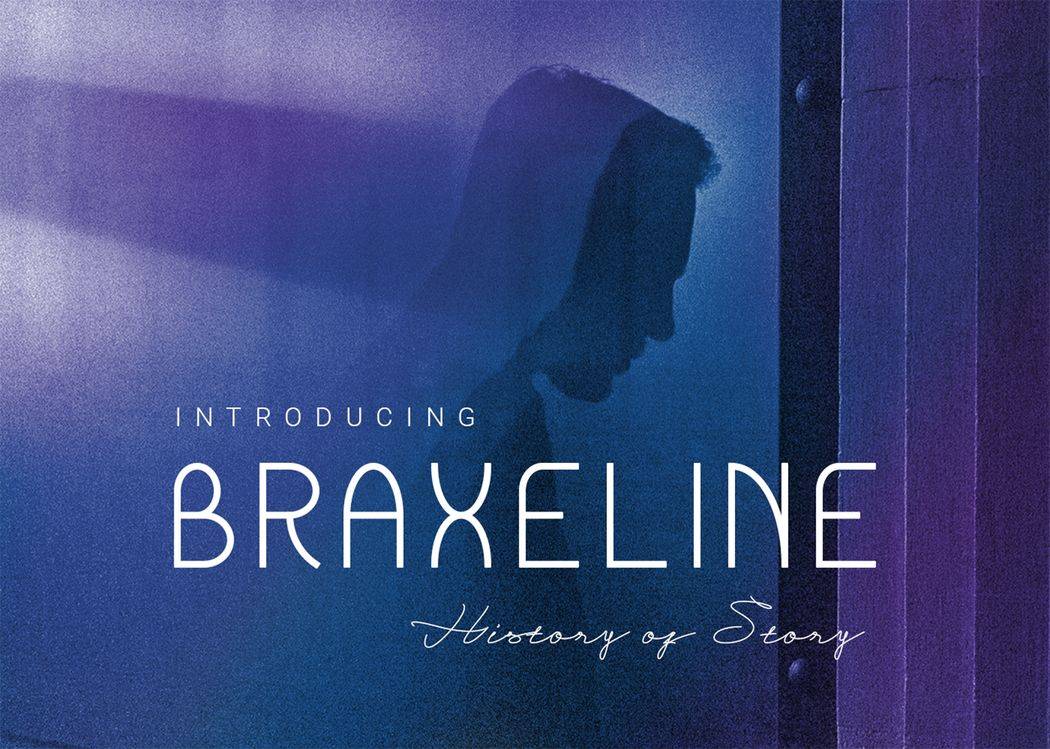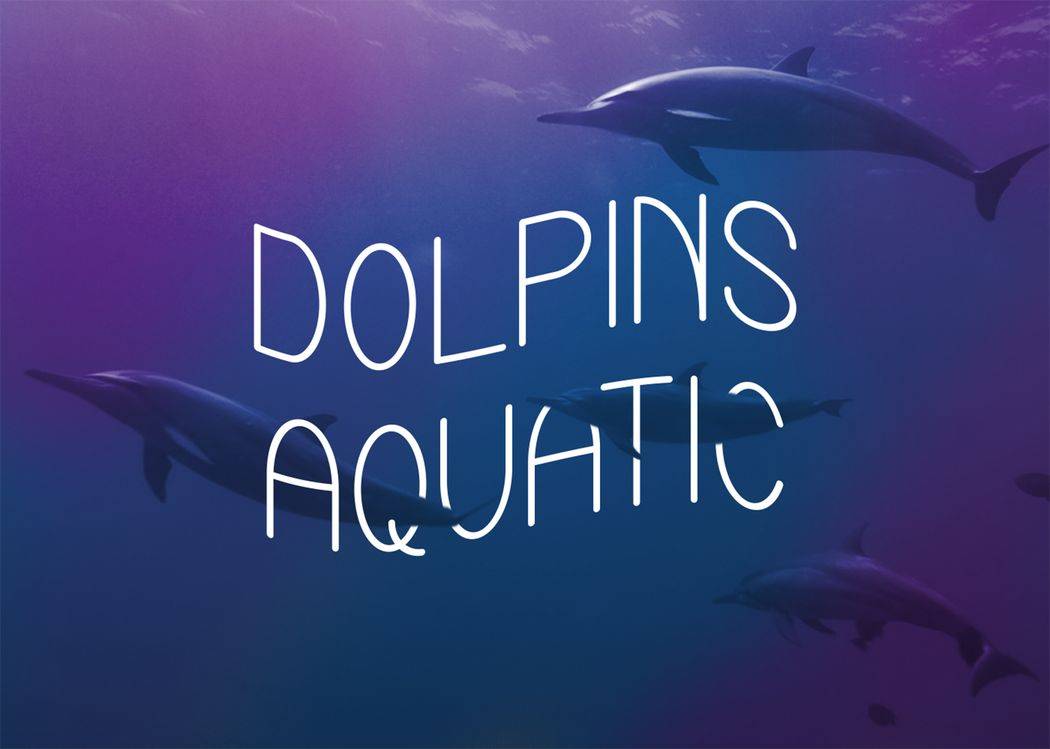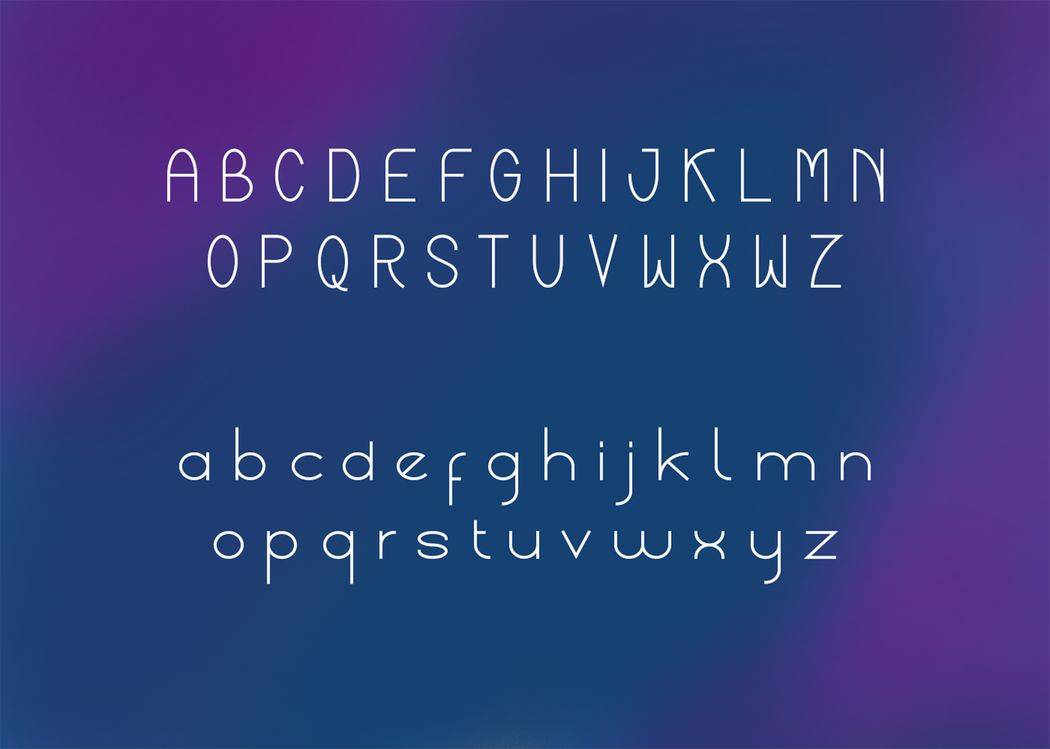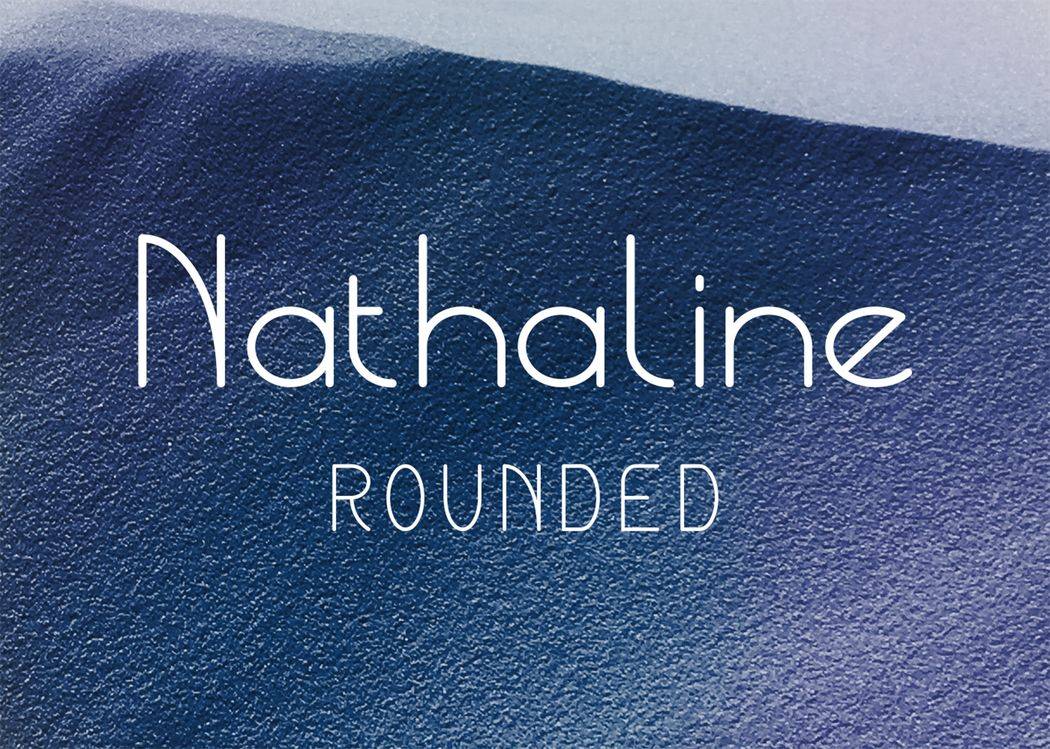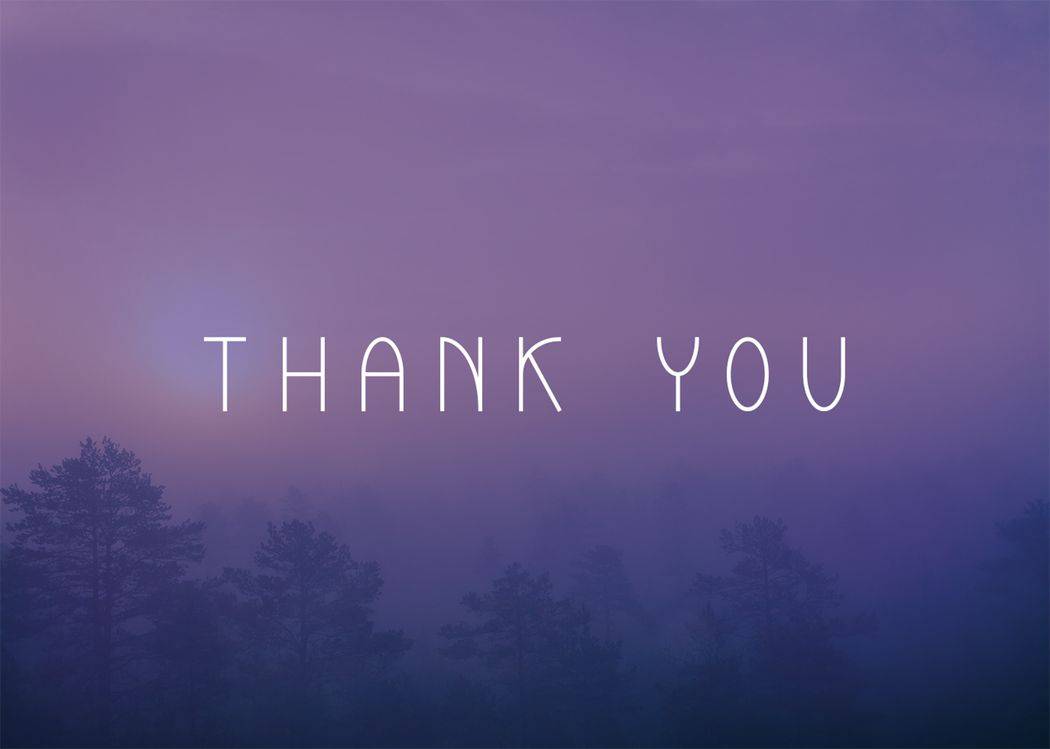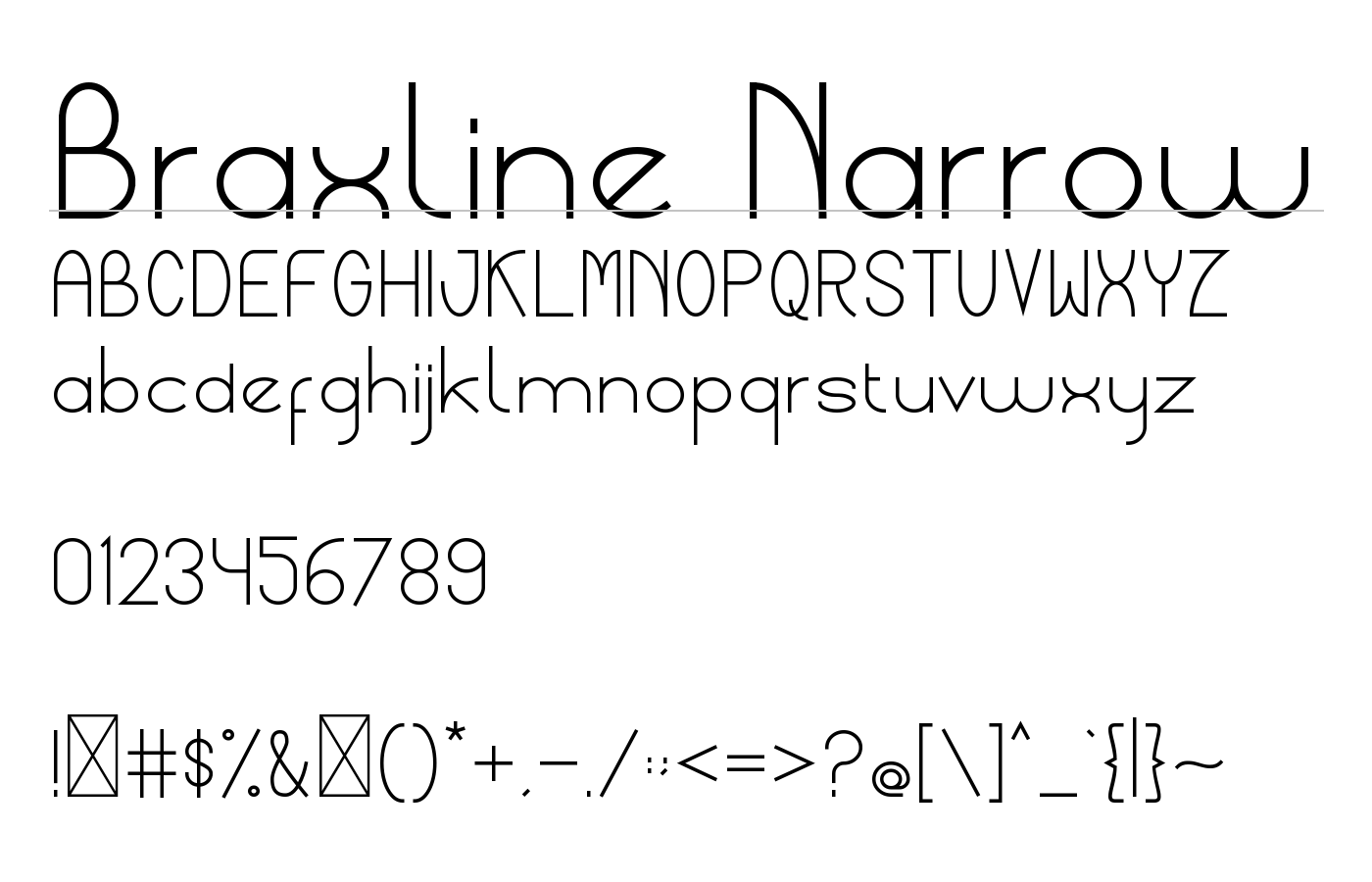
Braxeline Narrow is a sleek, modern sans serif font with a delicate, condensed structure and a distinctive geometric style. Its thin strokes, high x-height, and unique letter shapes give it a sophisticated yet playful personality, making it ideal for contemporary branding, editorial headlines, and stylish packaging. This font works well where elegance meets minimalism, providing a clean and refined look without losing character.
Braxeline Font
About Braxeline Font